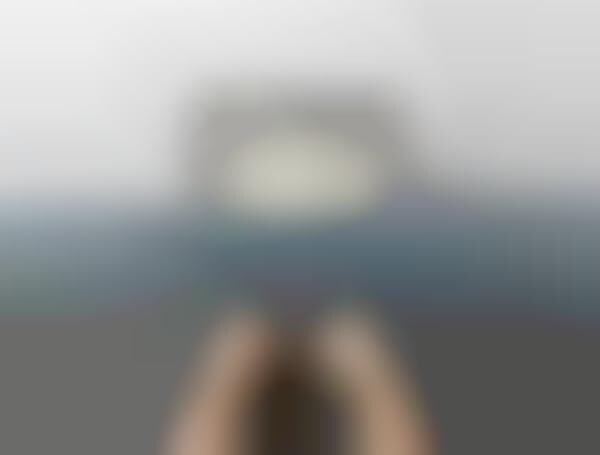
This clever keyboard allows users to create a custom typeface that looks like personalized handwriting. Called the 'Lazy Pen,' the keyboard system tracks wrist movement while typing that is then visualized in the slant, shape and size of the cursive letters on the screen.
The keyboard extension has two plastic bands on which to rest your wrists while typing. They move side to side and up and down in order to modulate your "writing" and create unique custom typeface. As wrists raise or shift, a software system translates the movements into variations in font.
As modernity has brought a lack of personalization, Nicholas Nahornyj aims to bring a little bit back with nostalgic handwritten letters that can be created while using the comfort and ease of modern technology.
The 'Lazy Pen' Lets Users Create Custom Typeface That Looks Like Cursive
Custom Typeface — The Lazy Pen keyboard allows users to create a custom typeface that looks like personalized handwriting, presenting an opportunity for businesses to offer a new way to refresh brand imaging with customized fonts.
Personalization — As modern technology has brought a lack of personalization, the Lazy Pen keyboard presents an opportunity to personalize text and written communication again, giving businesses the opportunity to provide unique, intimate experiences.
Wrist-tracking — Wrist tracking tech in the Lazy Pen keyboard creates variations in font through wrist movement, an innovation disruptive to the keyboard industry and presents opportunities in wearable tech.
Keyboard Manufacturing — The Lazy Pen keyboard poses a disruptive innovation to keyboard manufacturing, presenting opportunities for keyboard development companies to incorporate wrist tracking technology into their products.
Wearable Tech — The wrist-tracking technology used in the Lazy Pen keyboard presents opportunities for businesses in wearable tech, with the potential to incorporate this technology into clothing or accessories.
Brand Imaging and Marketing — The custom typeface generated by the Lazy Pen keyboard presents opportunities to refresh brand imaging with personalized font, presenting opportunities in the marketing and advertising industry.